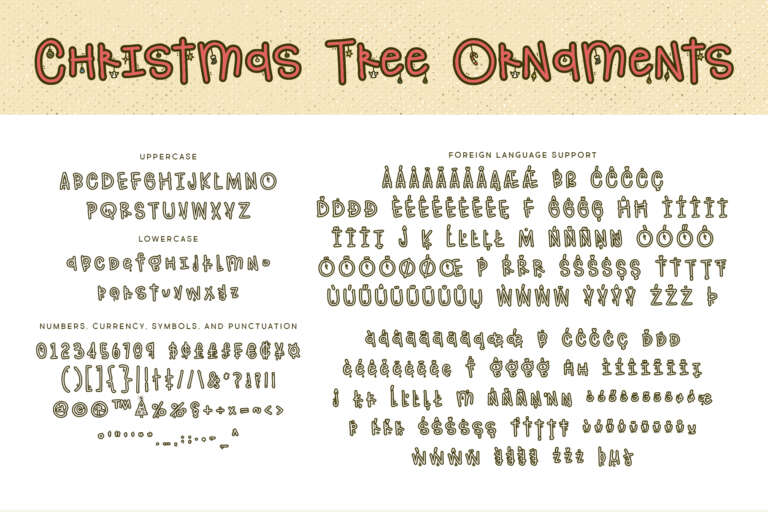
Christmas Tree Ornaments Font
The Christmas Tree Ornaments font is a fun, festive Christmas font. Grab it to add some holiday style to your designs.
Use the pound sign # for the Christmas Tree character! 🙂